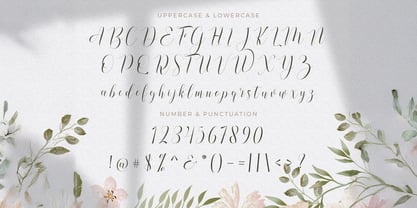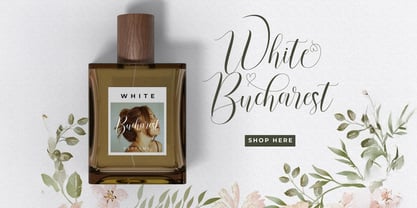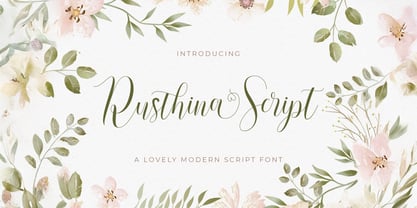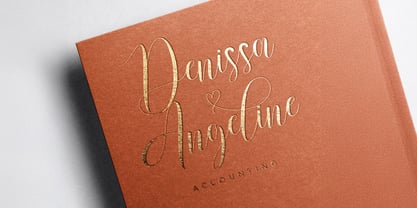
Rusthina Script
by Stringlabs Creative Studio
The Rusthina Script Font Family was designed by Virgiawan Listanto and published by Stringlabs Creative Studio. Rusthina Script contains 1 styles. More about this family
Rusthina is a beautifully elegant and romantic script font that exudes a warm, handwritten charm. With its delicate, flowing letterforms and soft, rounded edges, it’s perfect for projects that need a personal and intimate touch.
Designers: Virgiawan Listanto
Foundry: Stringlabs Creative Studio